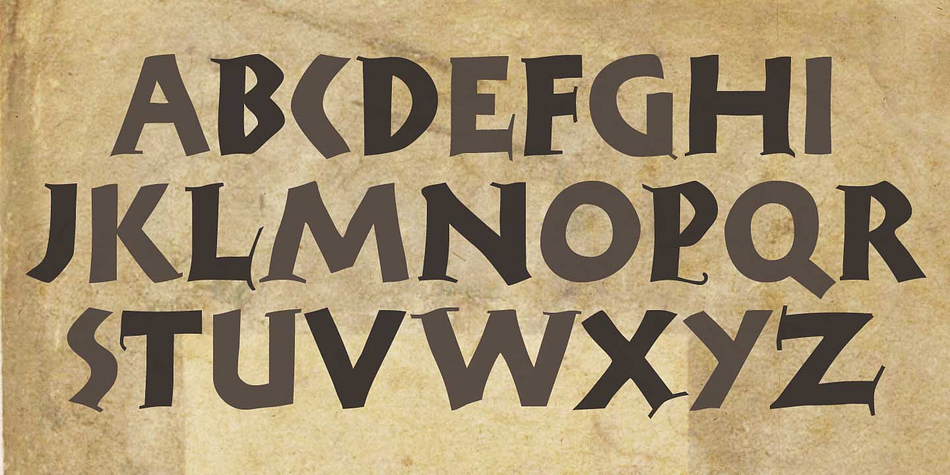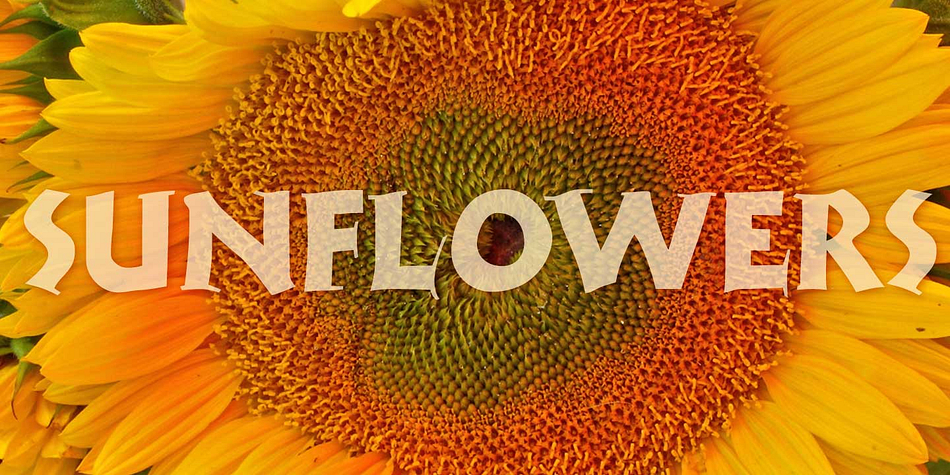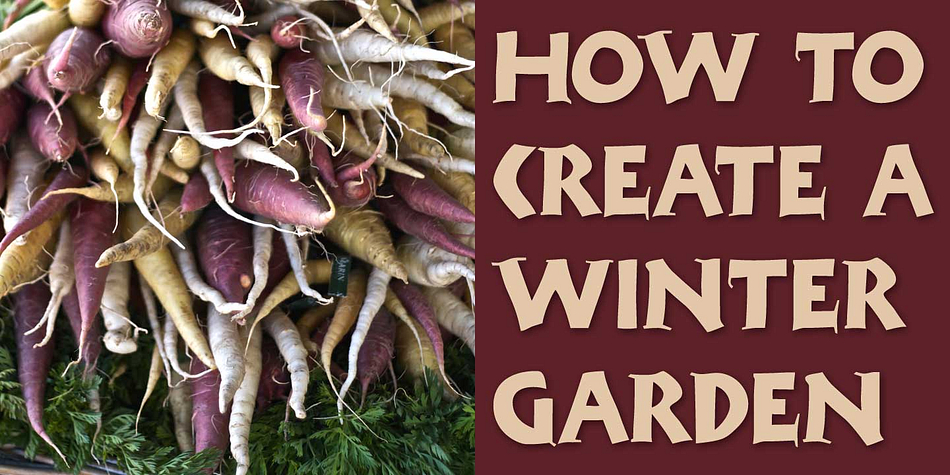
Rudolf is a hand display font published by CastleType.
RudolfTM is inspired by a handwritten alphabet from The Little ABC Book of Rudolf Koch (1934). Koch’s delightful calligraphy is reminiscent of his typeface Neuland (1923). Rudolf is ideal where a bold but whimsical typeface is needed.